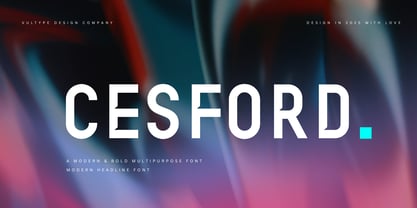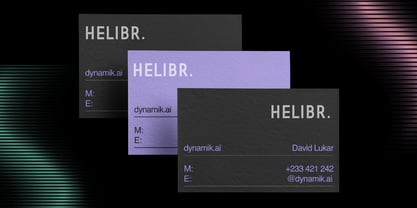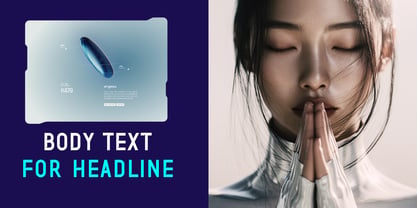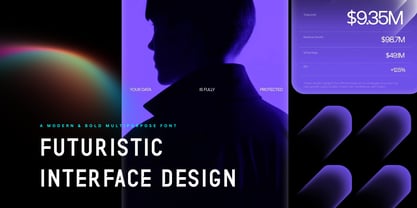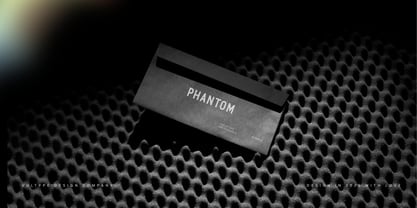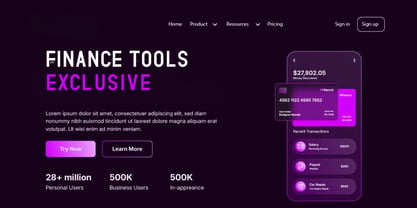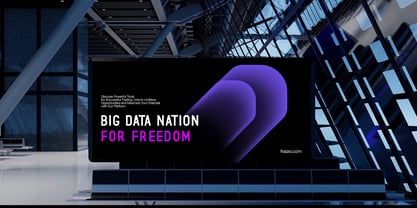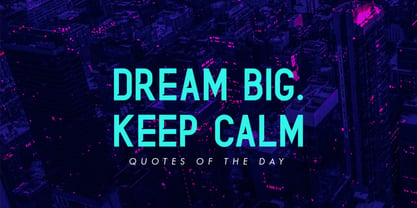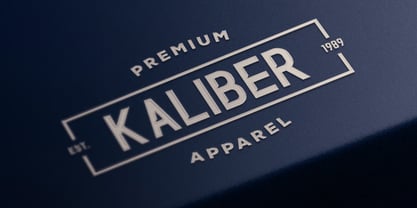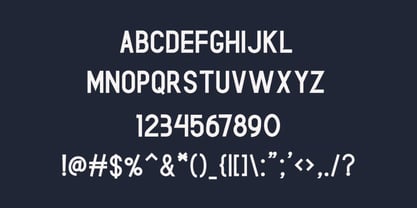
Cesford
La famille de polices Cesford a été conçue par Candra Hamdani et publiée par Vultype Co. Cesford contient 2 styles et options de package familial. En savoir plus sur cette famille
Cesford is a futuristic modern sans serif typeface designed as a bold and clean display font with a strong, forward-looking character. Its sharp forms, geometric structure, and minimalistic style create a sleek and contemporary look while maintaining excellent readability. Perfect for any project that requires a modern and high-tech feel—such as branding, logo design, UI/UX, posters, titles, movie covers, and digital content. Every letter is crafted with balanced proportions, giving Phantom a stable and precise appearance across both print and digital media. If you're looking for a typeface that embodies clean aesthetics, sleek futurism, and professional modernity, Phantom is an ideal choice. It works beautifully for sci-fi themes, tech startups, futuristic branding, and any design that aims to stand out with a contemporary edge.